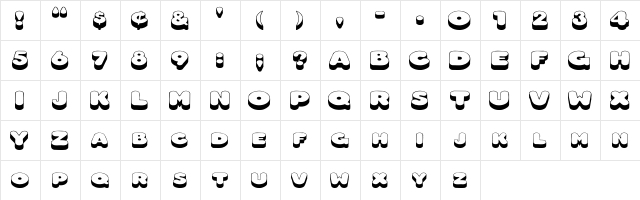
HotDog Ex Regular
Design Context for HotDog Ex Typeface
HotDog Ex is a composed and adaptable typeface that performs quietly and consistently across a wide range of design contexts.